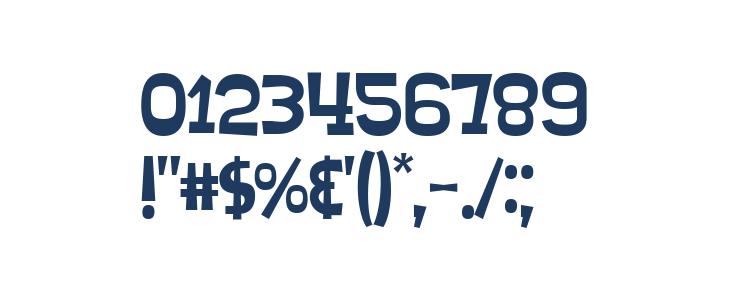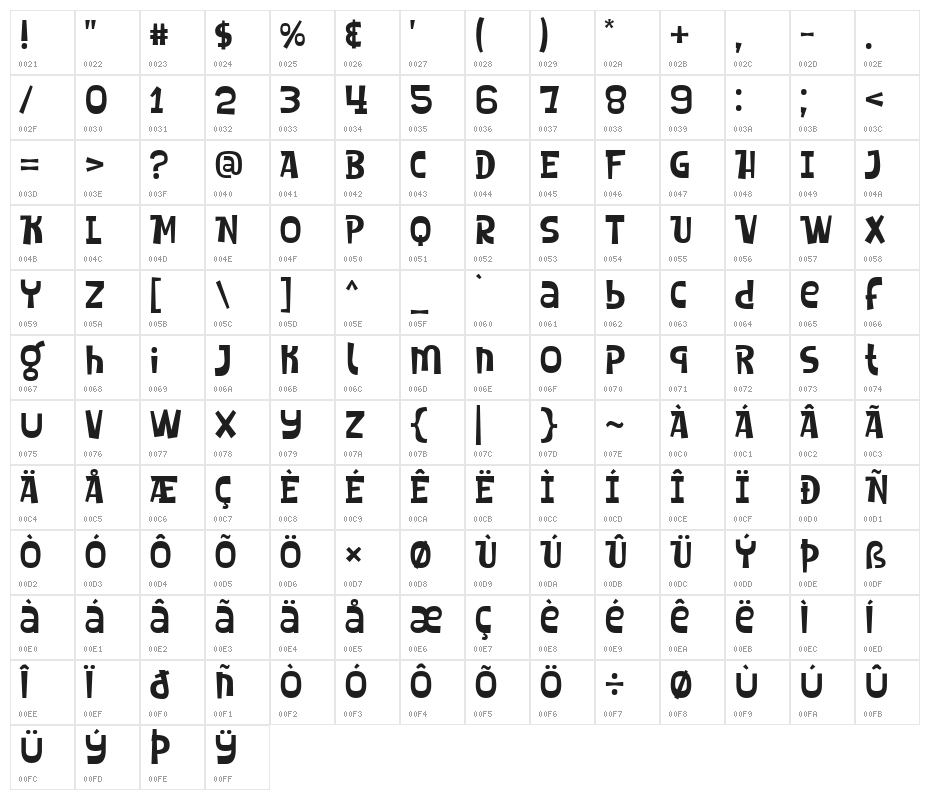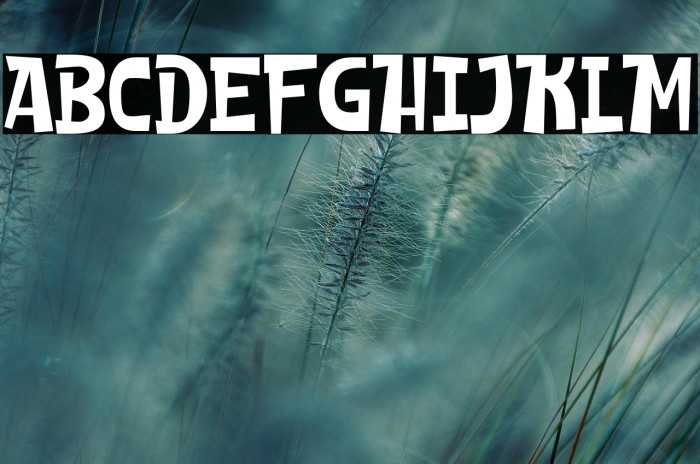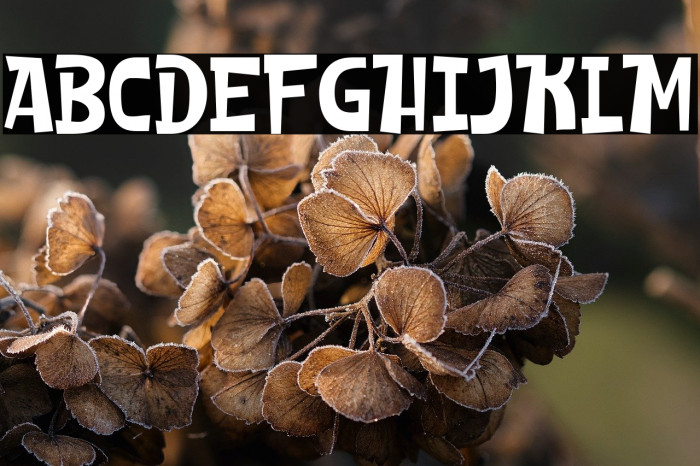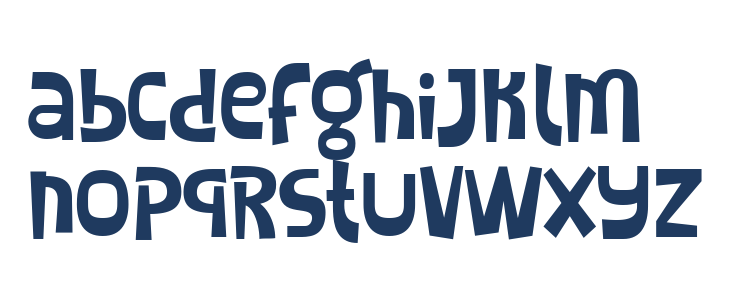
SHEROO Font
This font features a bold and playful design with a distinctively quirky and artistic flair. The characters have a unique, slightly irregular shape that gives them a hand-drawn appearance. The uppercase letters are bold and dynamic, with varying stroke widths that add a sense of movement and energy. The lowercase letters maintain this playful style, with rounded edges and a slightly condensed form. Numbers and special characters are designed to match the overall whimsical aesthetic, making them suitable for creative and informal projects. The font's style is both modern and decorative, making it versatile for various design needs.
| Width | Condensed |
| Overall Style | Modern, Decorative |
| Proposed Projects | Ideal for children's books, playful branding, creative posters, and artistic projects. |